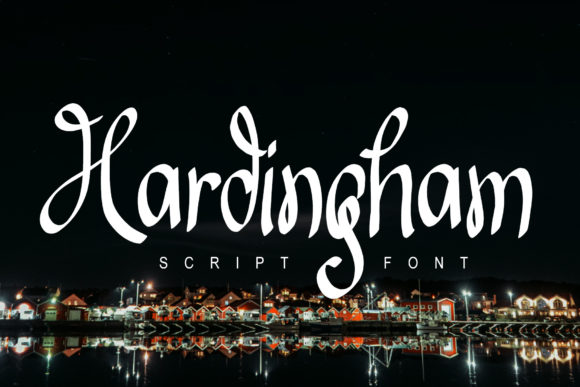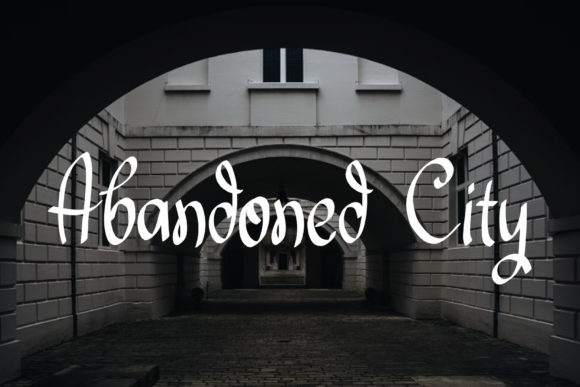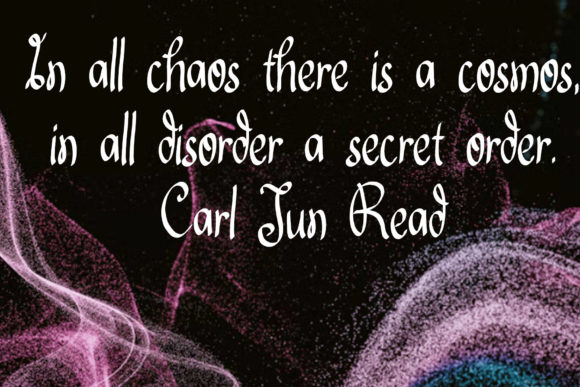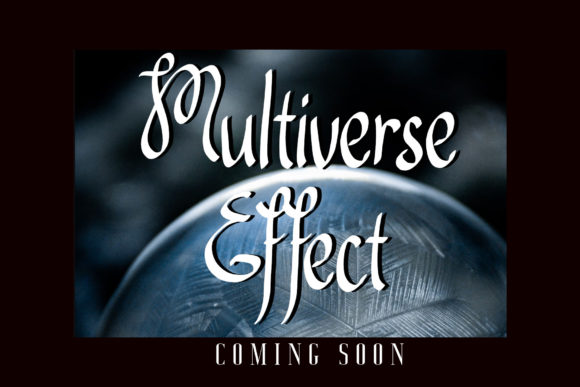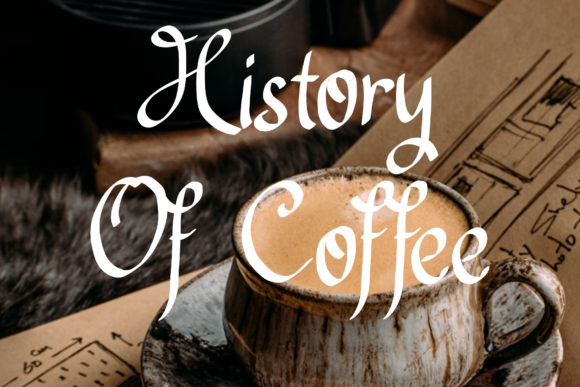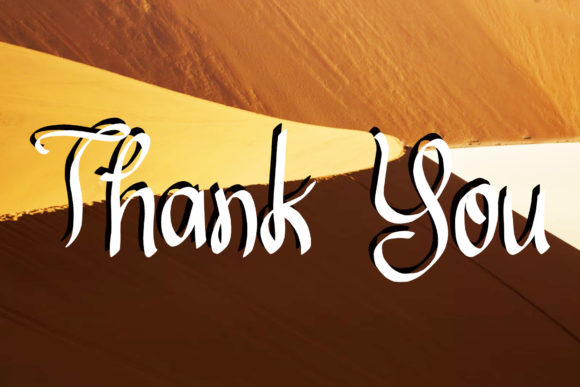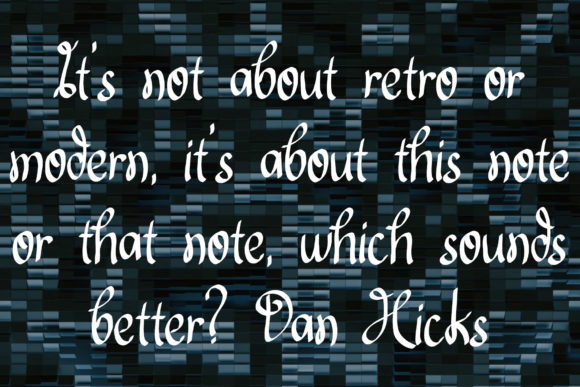
Hardingham Font
About Hardingham Font
“Hardingham” is not just any font—it’s a sweet, casual, and trendy handwritten typeface that adds a touch of charm to any design. With its laid-back vibe and stylish appearance, “Hardingham” is the perfect choice for a variety of projects that require a simple and fun touch.
Crafted with care, this font exudes warmth and personality, making it ideal for wedding invitations, thank you cards, quotes, greeting cards, logos, business cards, and more. Its versatility ensures it complements various design themes and concepts, adding a playful yet stylish flair to every project it graces.
Whether you’re creating a heartfelt message or developing a brand identity, “Hardingham” is sure to make a lasting impression. Its casual and trendy look adds visual interest and personality to your designs, making them stand out with ease.
Moreover, “Hardingham” offers a perfect balance between readability and style. Its well-crafted letterforms ensure that your message is effectively communicated to your audience, while its sweet and casual demeanor adds a fun touch to your designs.
In summary, “Hardingham” is more than just a font—it’s a versatile and stylish tool that empowers designers to create engaging and memorable designs with ease. Embrace its sweet and casual charm and watch as it brings a fun touch to all of your creations, making them truly shine with its trendy vibe.